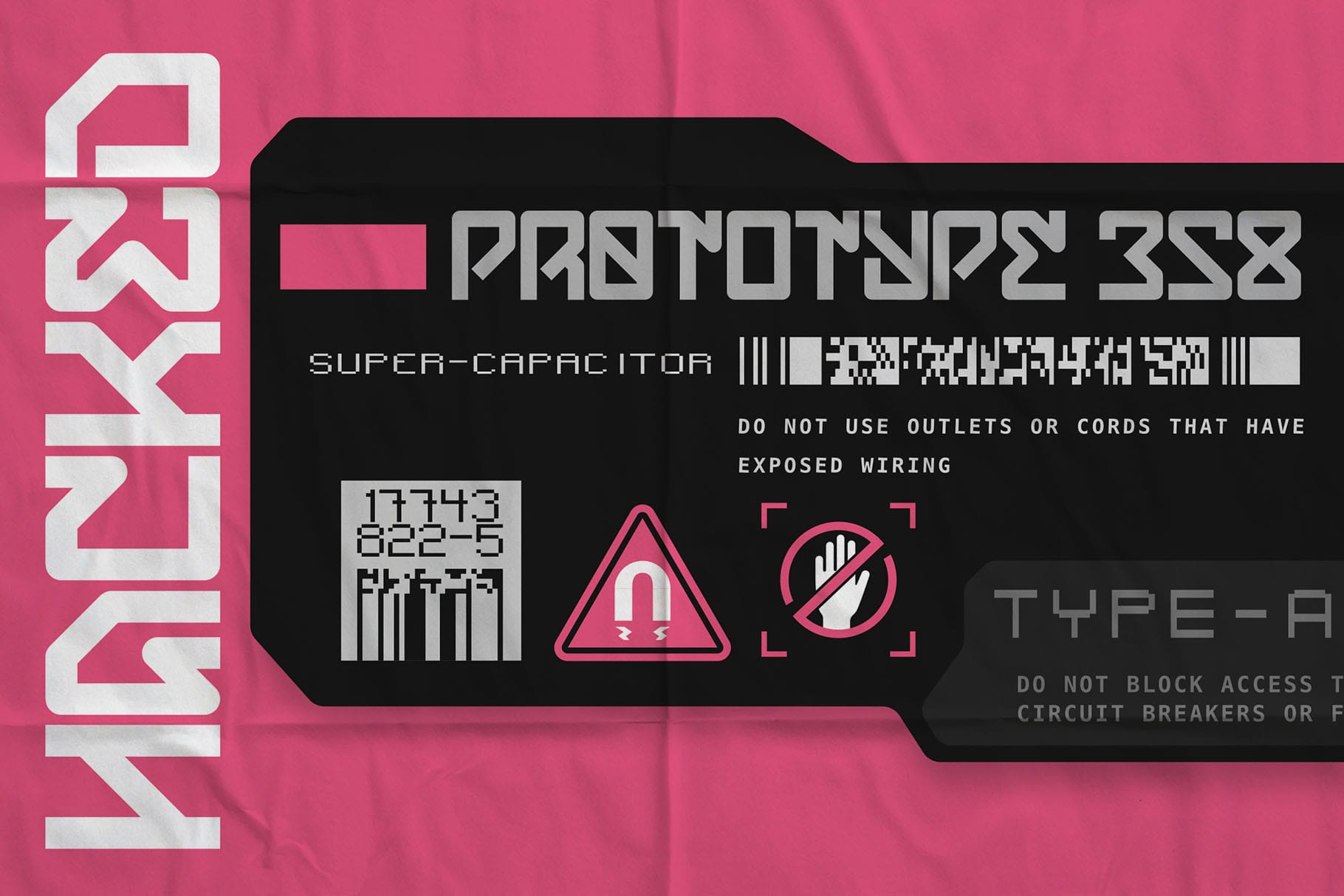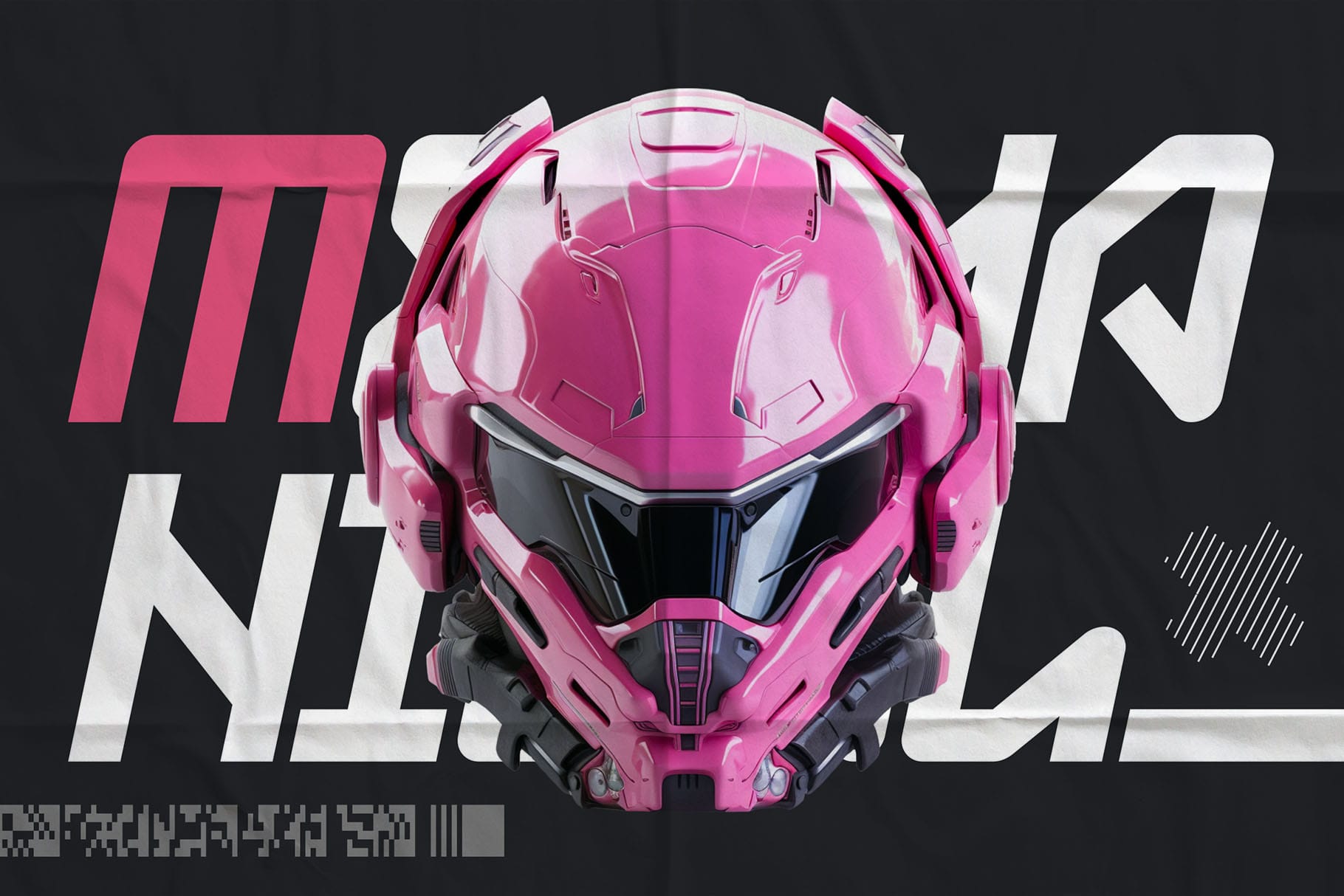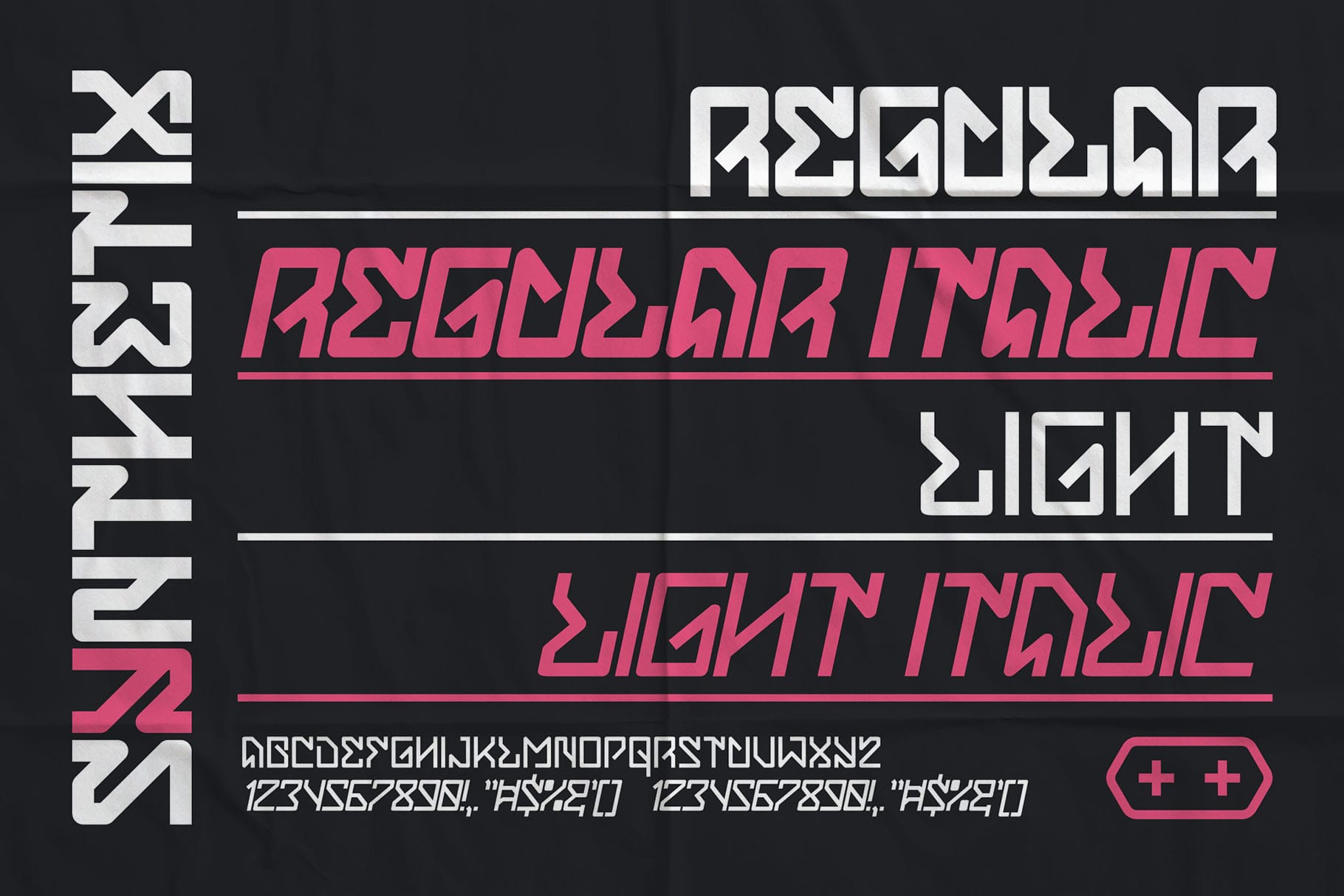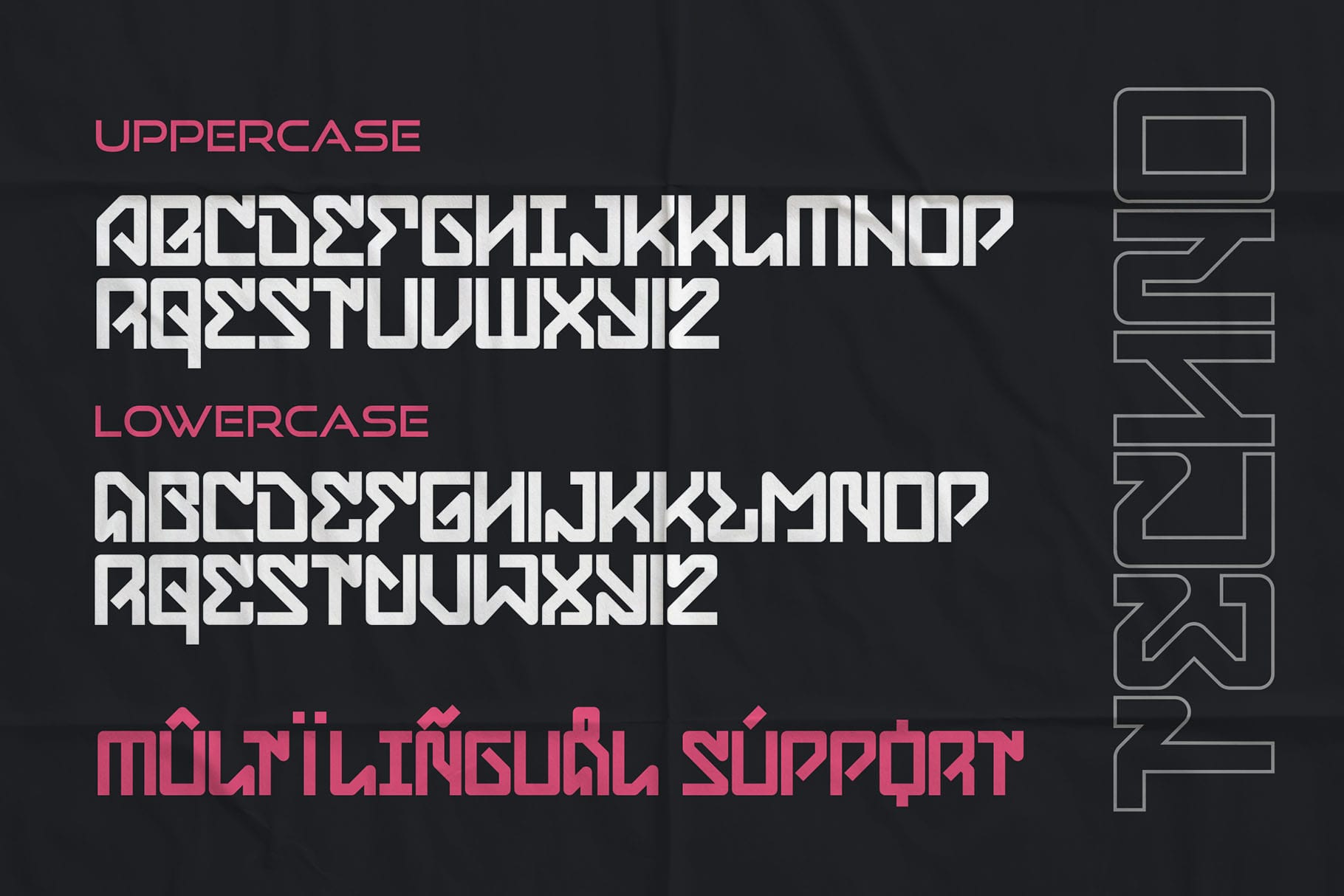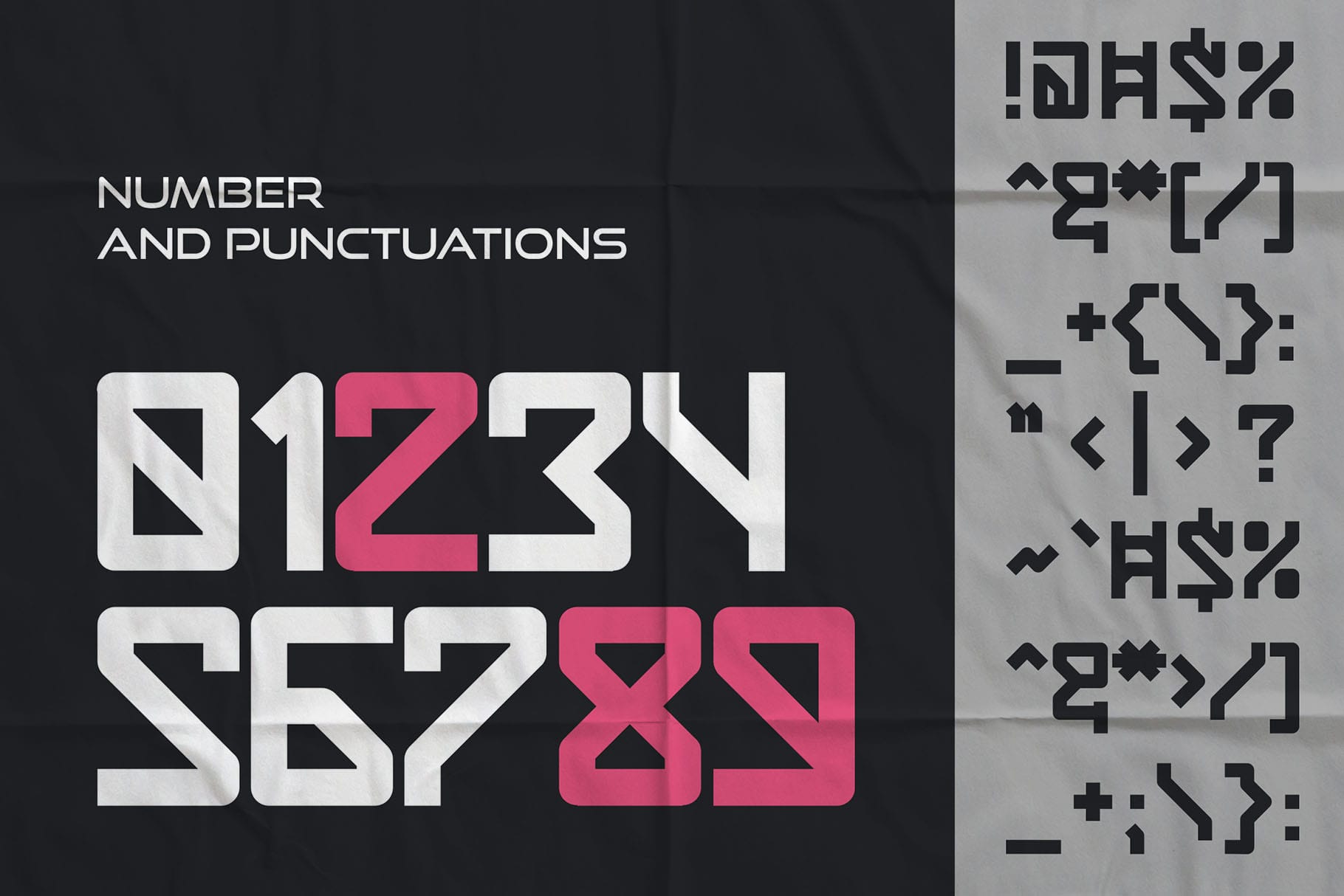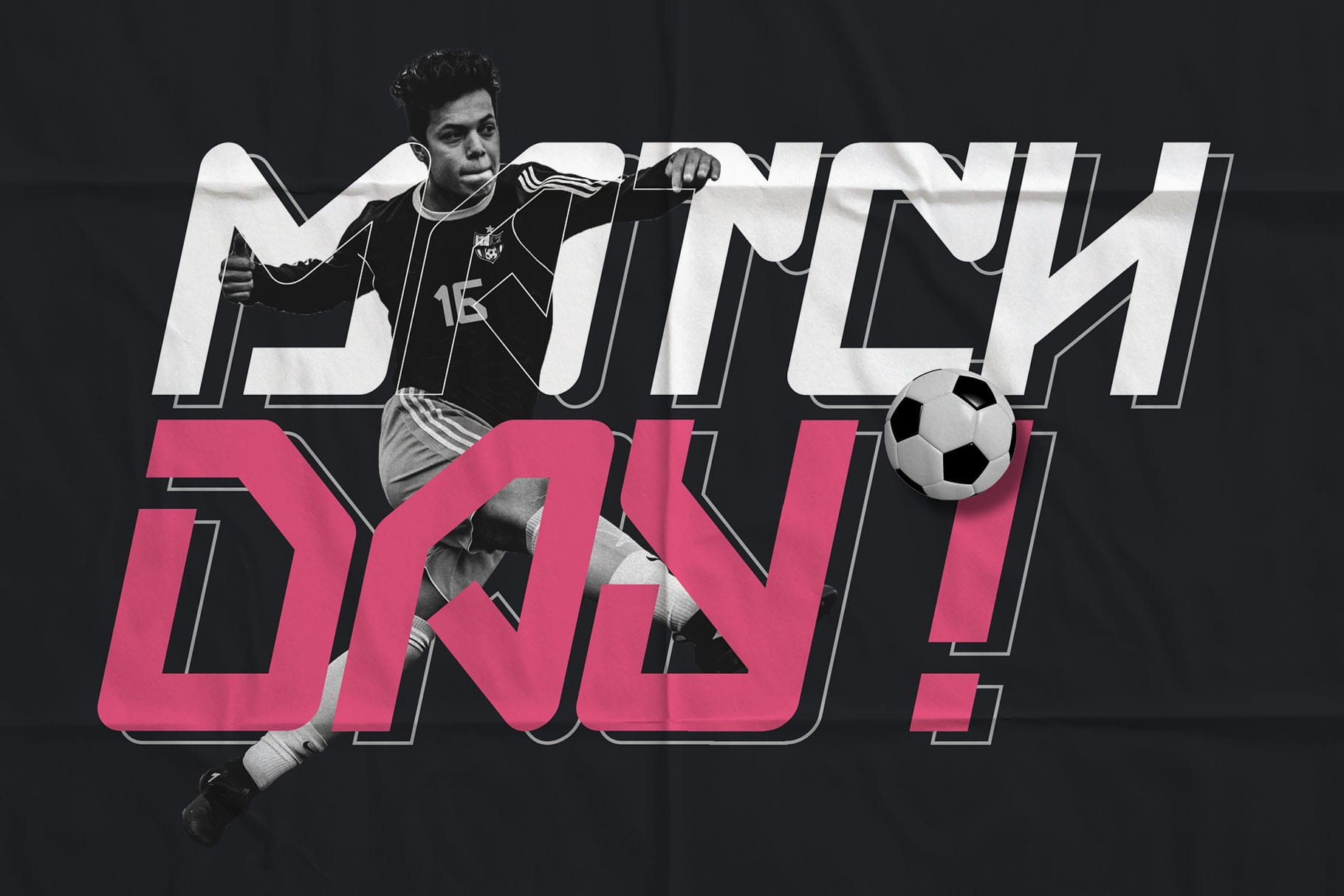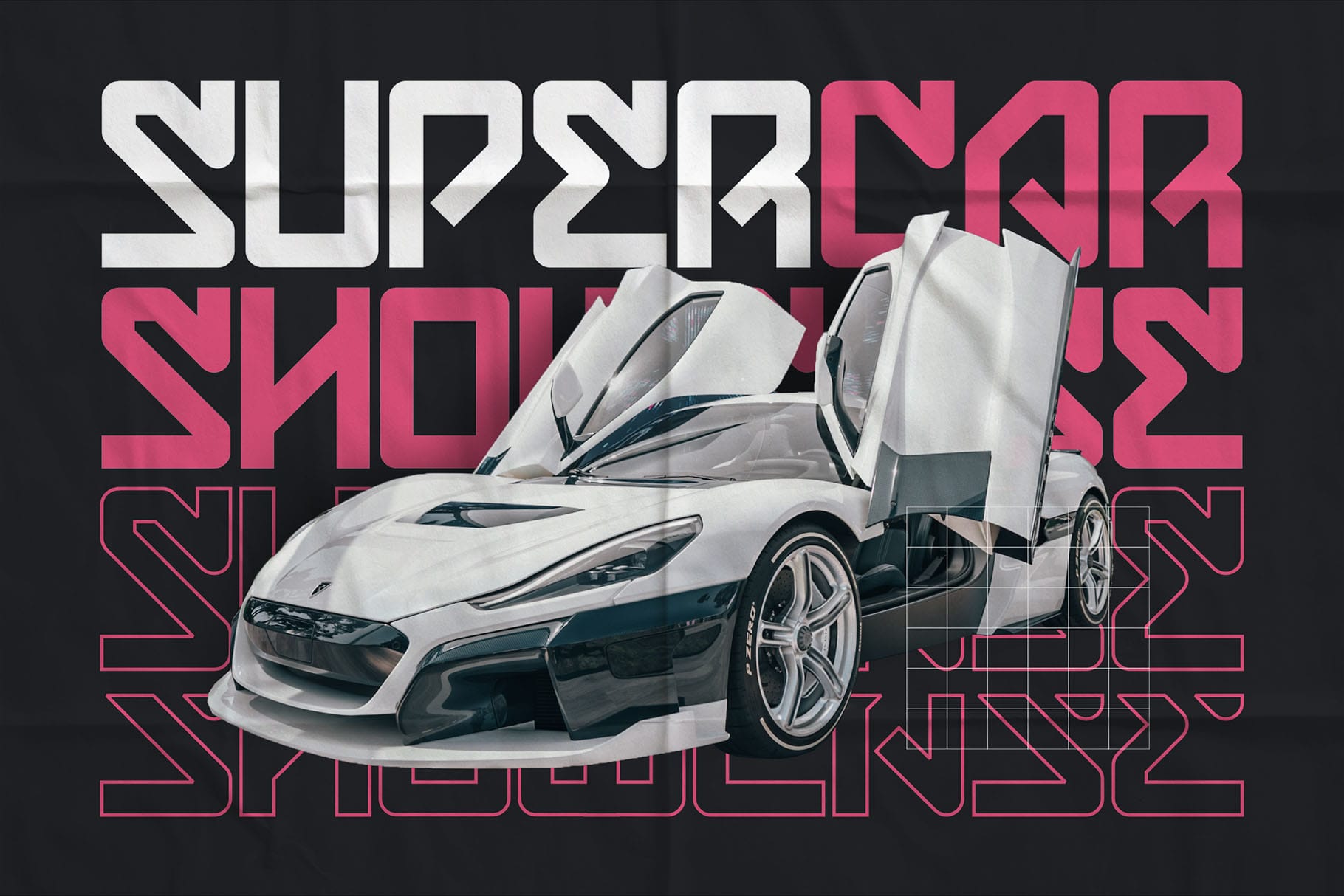
Synthetic, a formidable futuristic techno font, transcends the boundaries of typographic innovation with its commanding styles—Regular, Italic, Light, and Italic Light. Each stroke pulsates with a powerful synergy of precision and avant-garde design, marking a paradigm shift in the world of futuristic typography. This font is not merely a set of characters; it’s a dynamic visual language, a fusion of sleek modernity and visionary aesthetics.
The Regular style commands attention, embodying strength and clarity, while the Italic variant adds a dynamic tilt, evoking a sense of forward movement. The Light style introduces an ethereal touch, perfect for highlighting subtleties, while the Italic Light style combines elegance with an avant-garde slant. Synthetic isn’t just a font; it’s a visual manifesto—a testament to the relentless pursuit of futuristic excellence, offering designers an unparalleled toolkit to propel their creations into the vanguard of contemporary design.